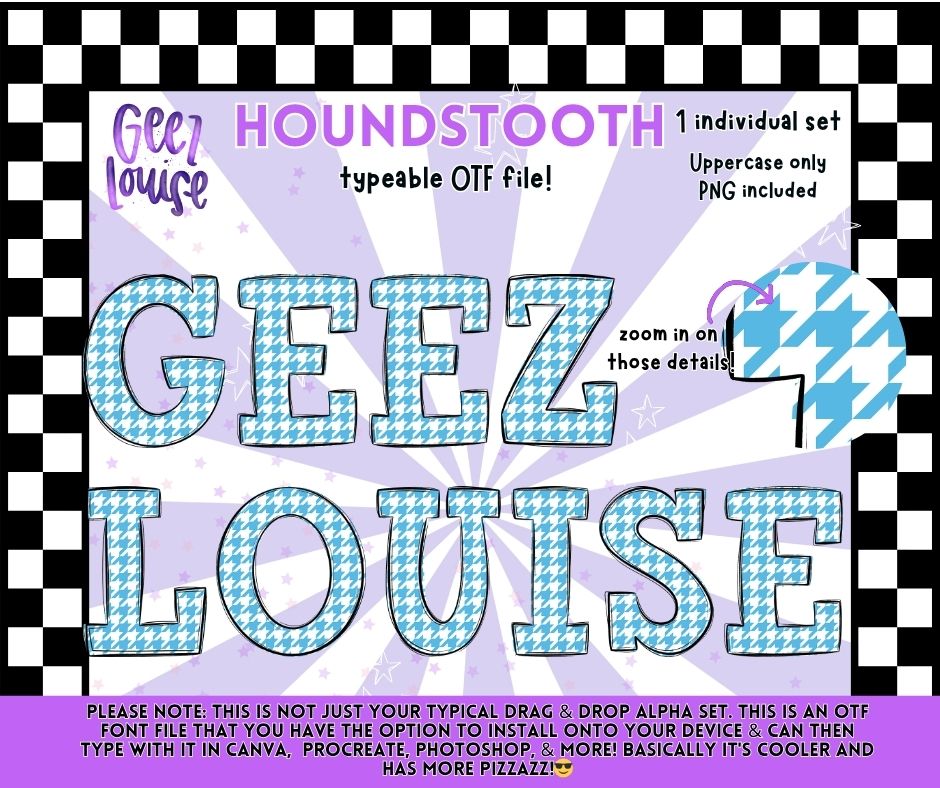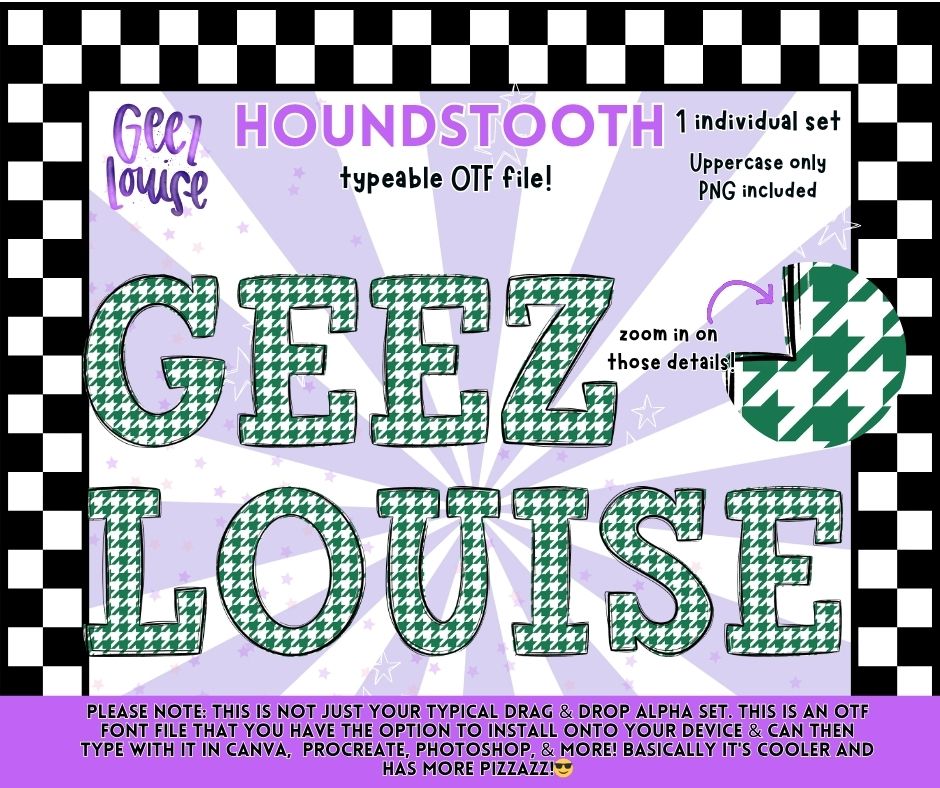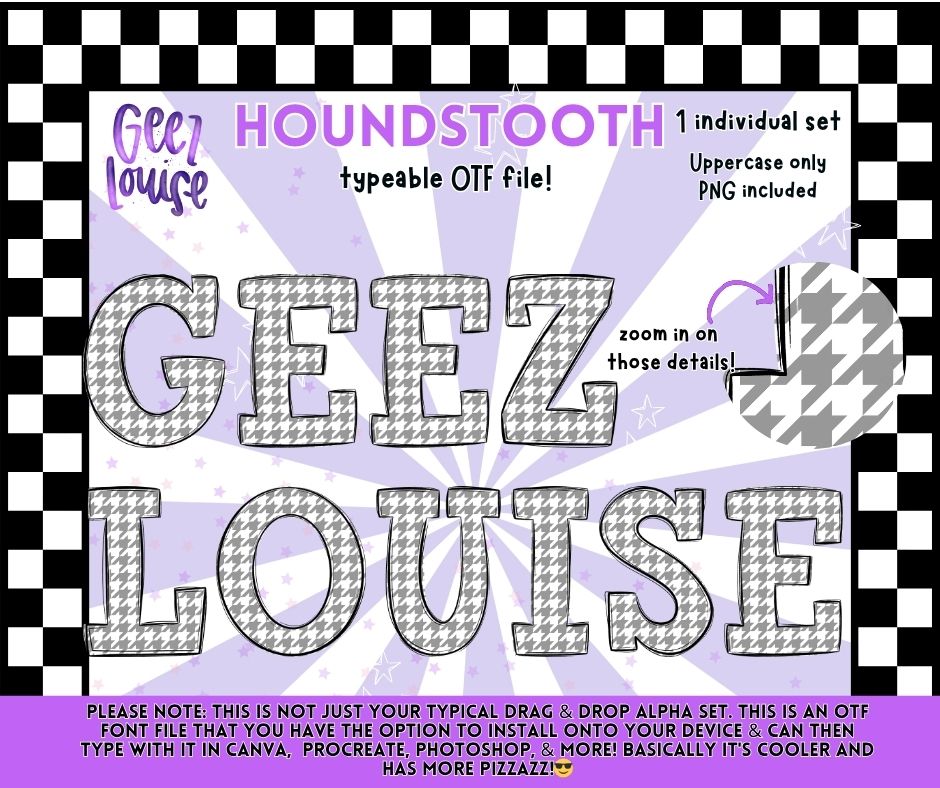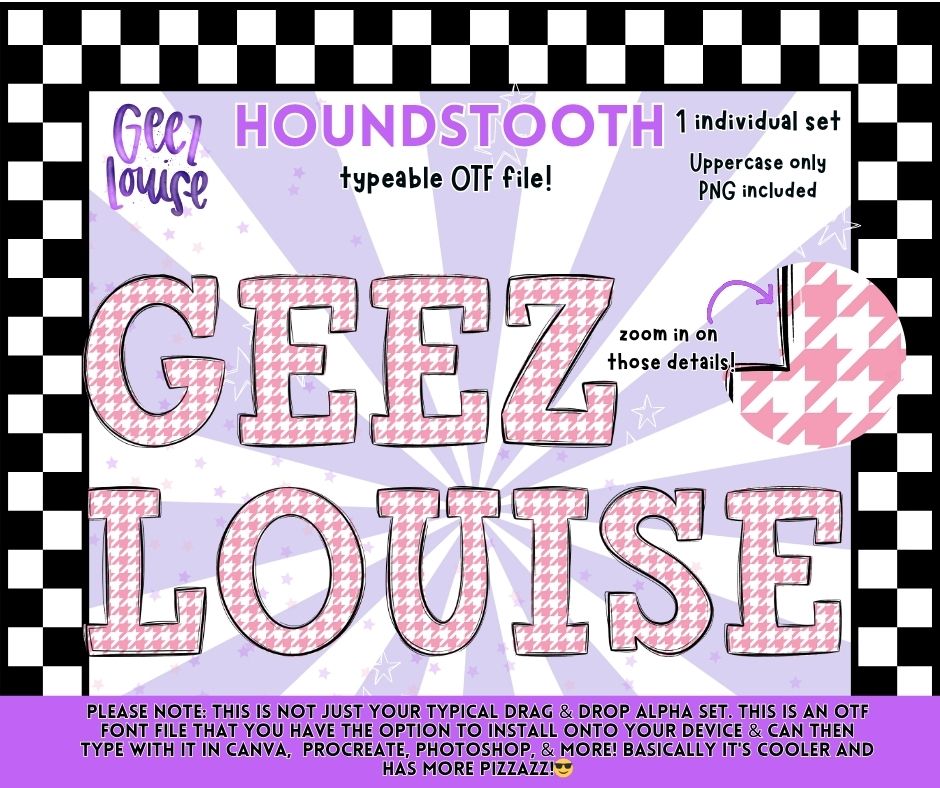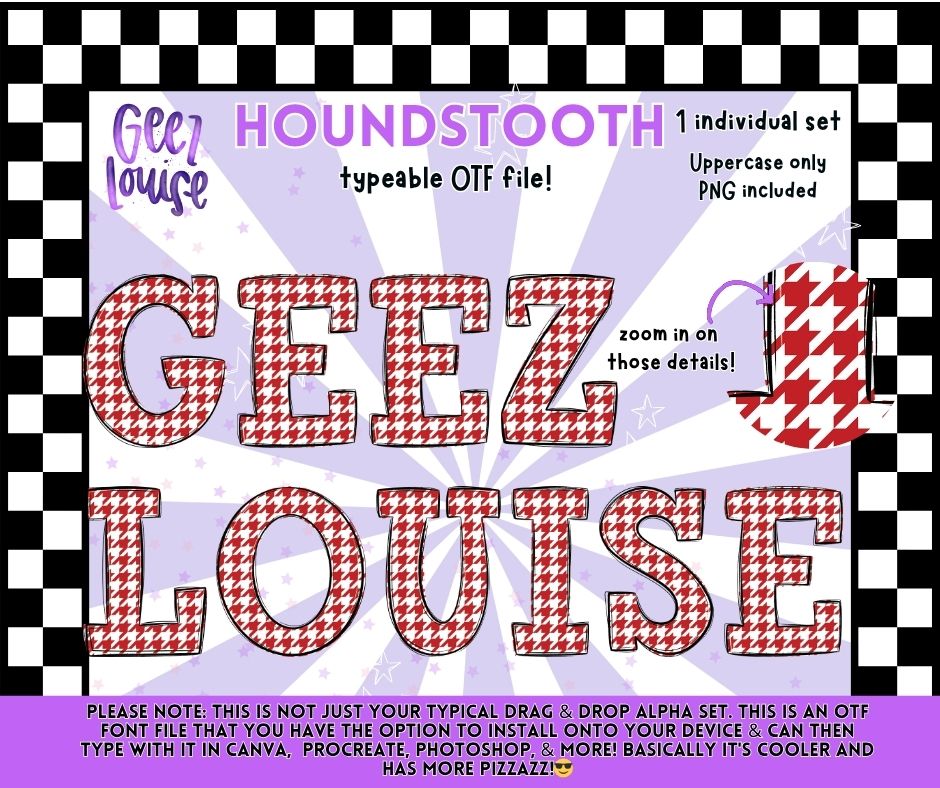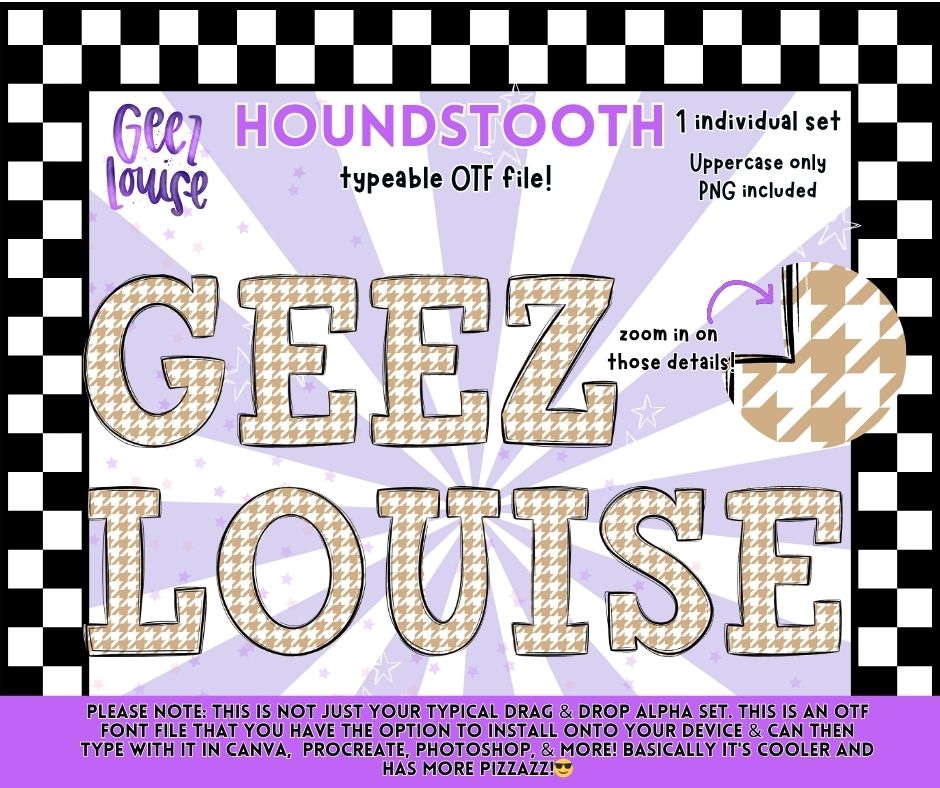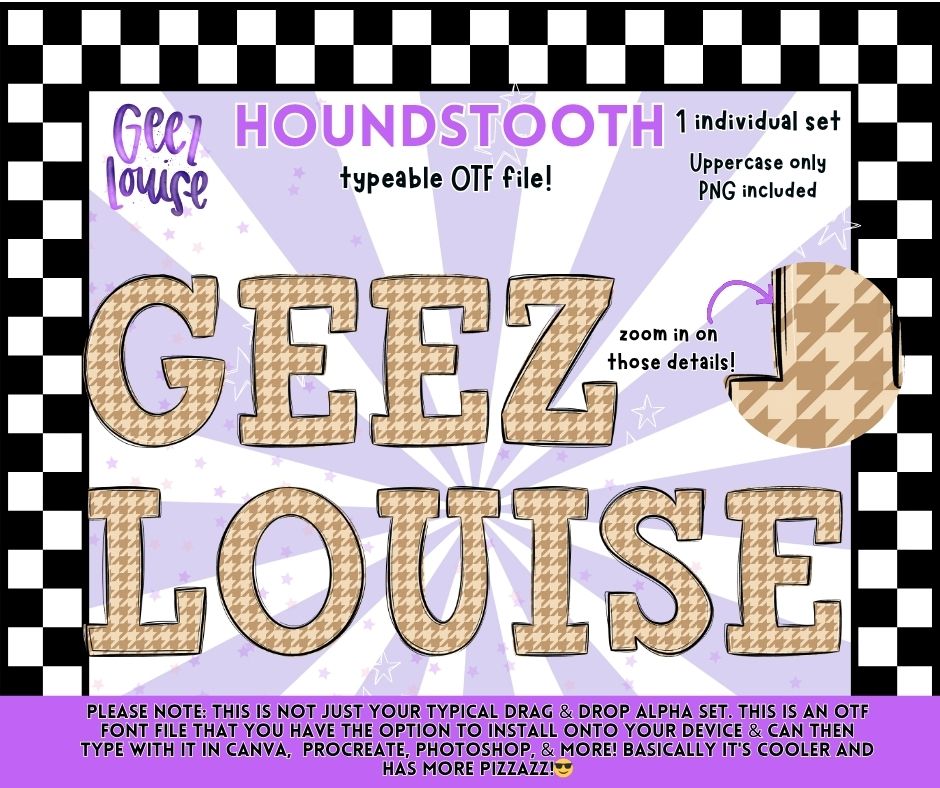
Houndstooth Alpha – Typeable OTF Font with PNG Letters (Uppercase)
Bring bold, classic style to every project with the Houndstooth Alpha OTF Font — a typeable letter set designed for instant flair! Instead of dragging and dropping each letter, simply install the font and type inside your favorite design programs including Canva, Procreate, Photoshop, and more.
Each variant features its own unique houndstooth colorway, giving you stylish flexibility for school spirit wear, sports merch, holiday themes, and everyday designs.
Upgrade your alpha game with a fun, typeable font that’s all about pattern, personality, and pizzazz 🖤🤍